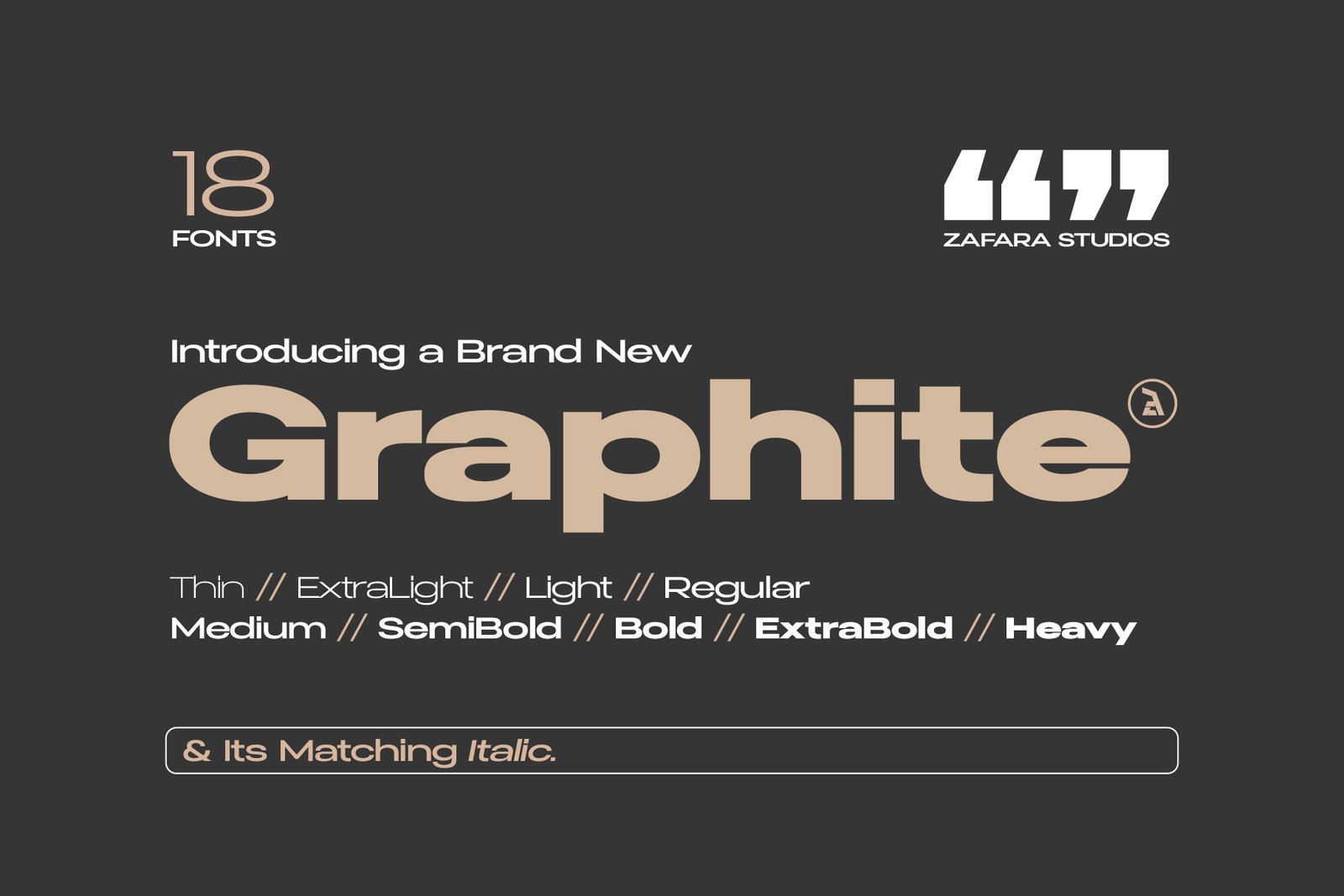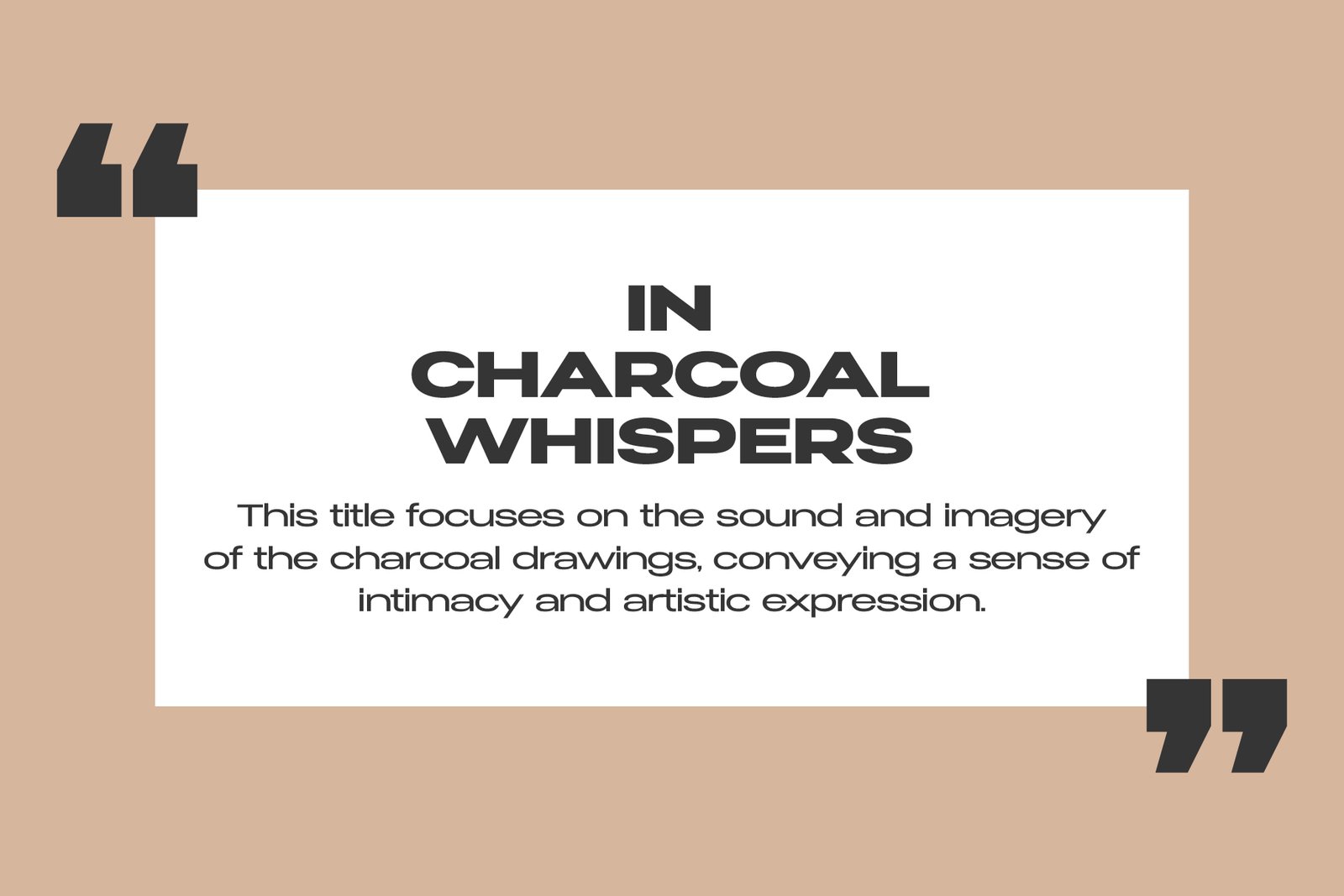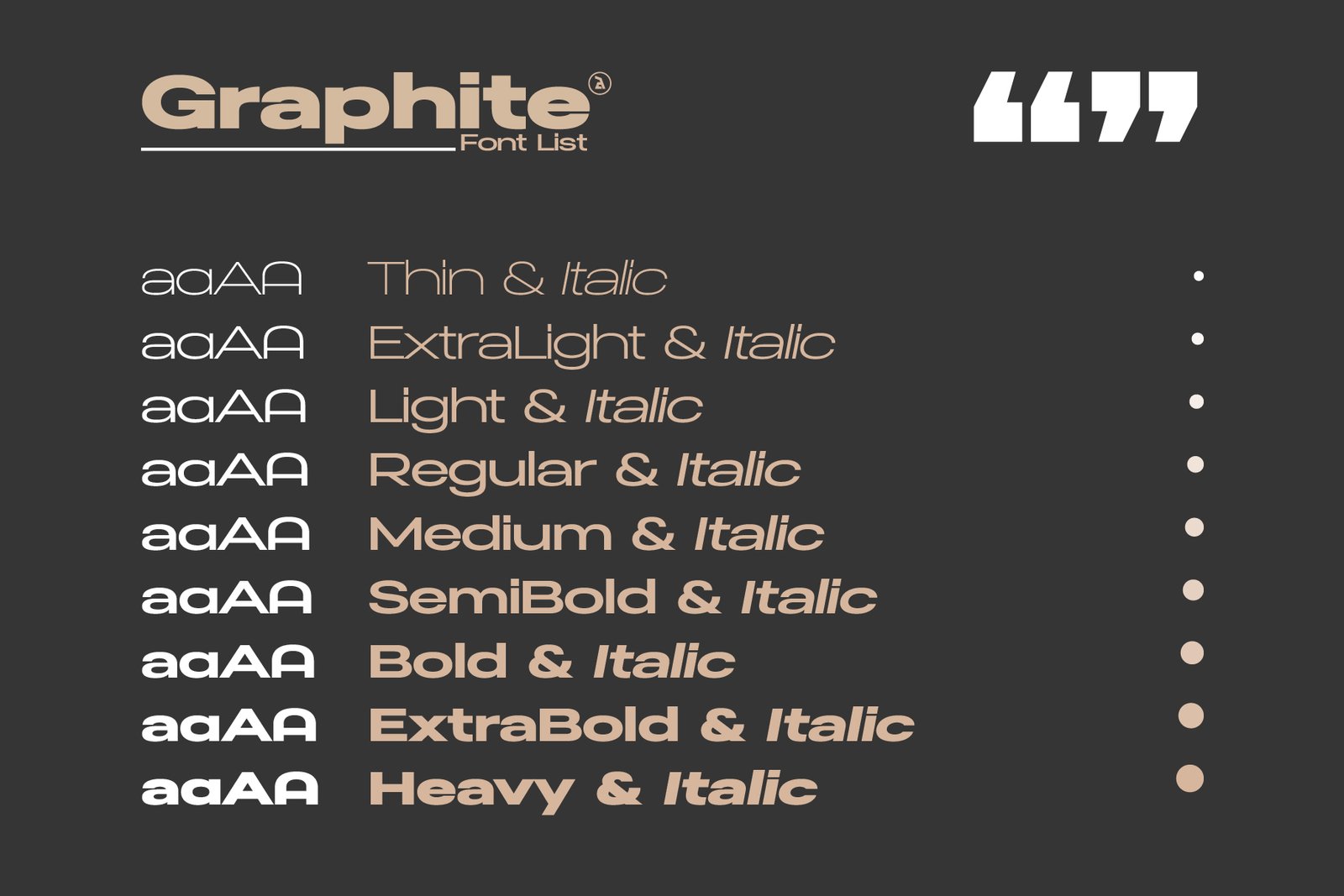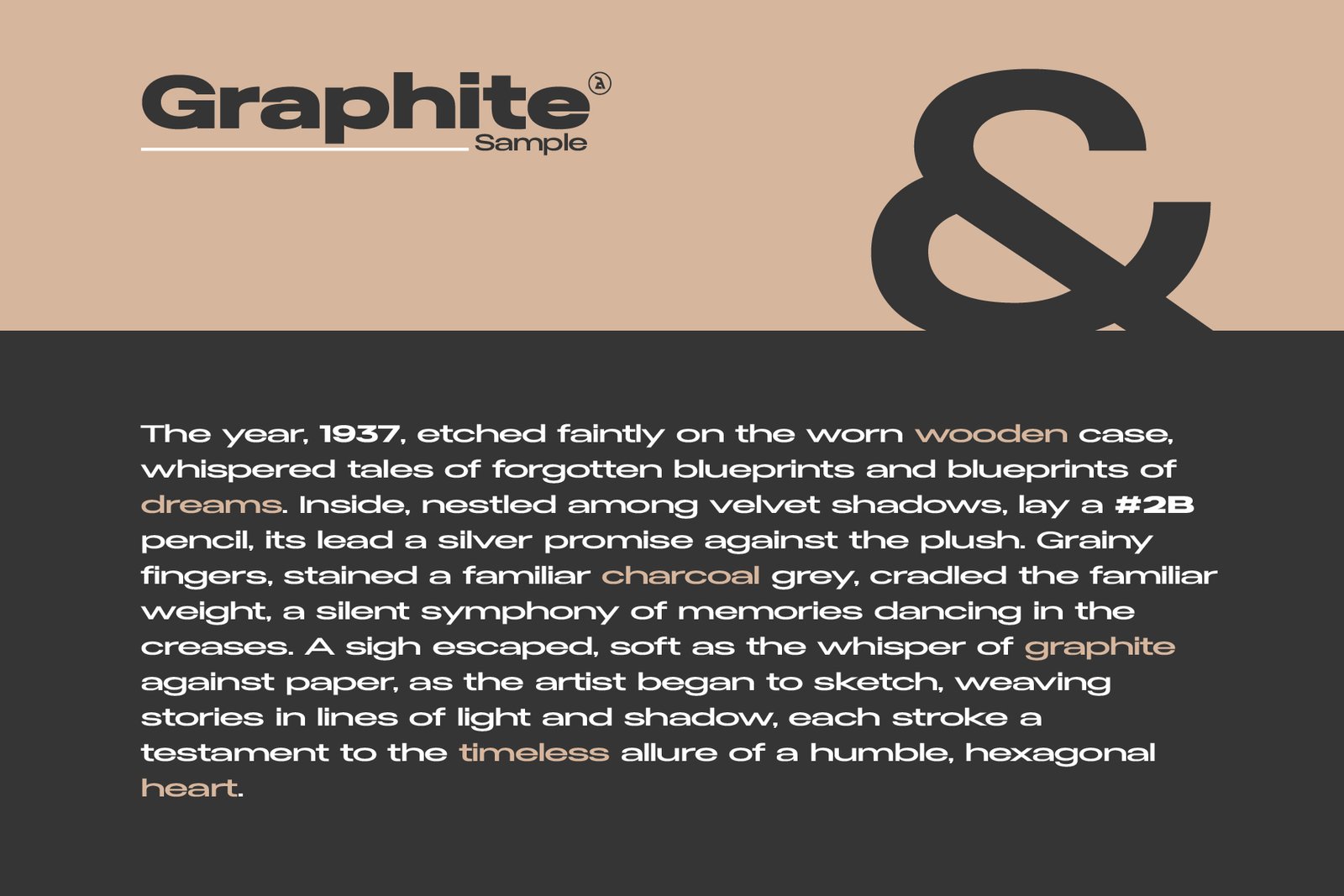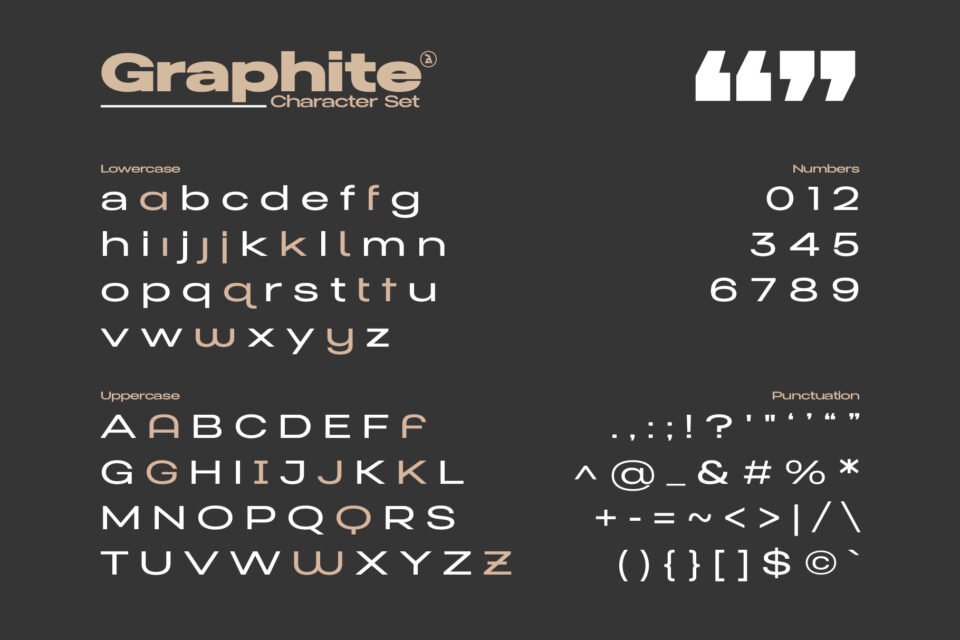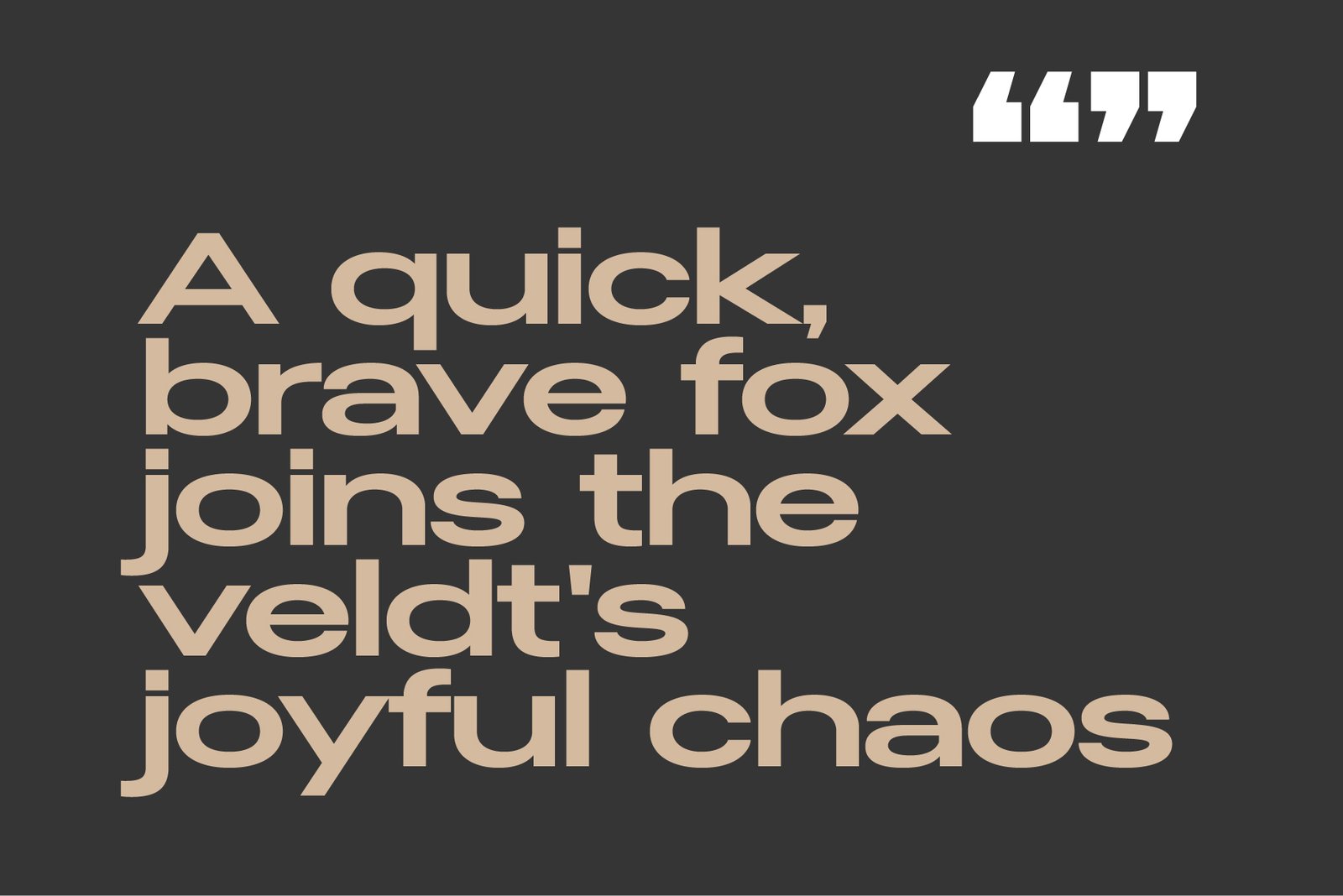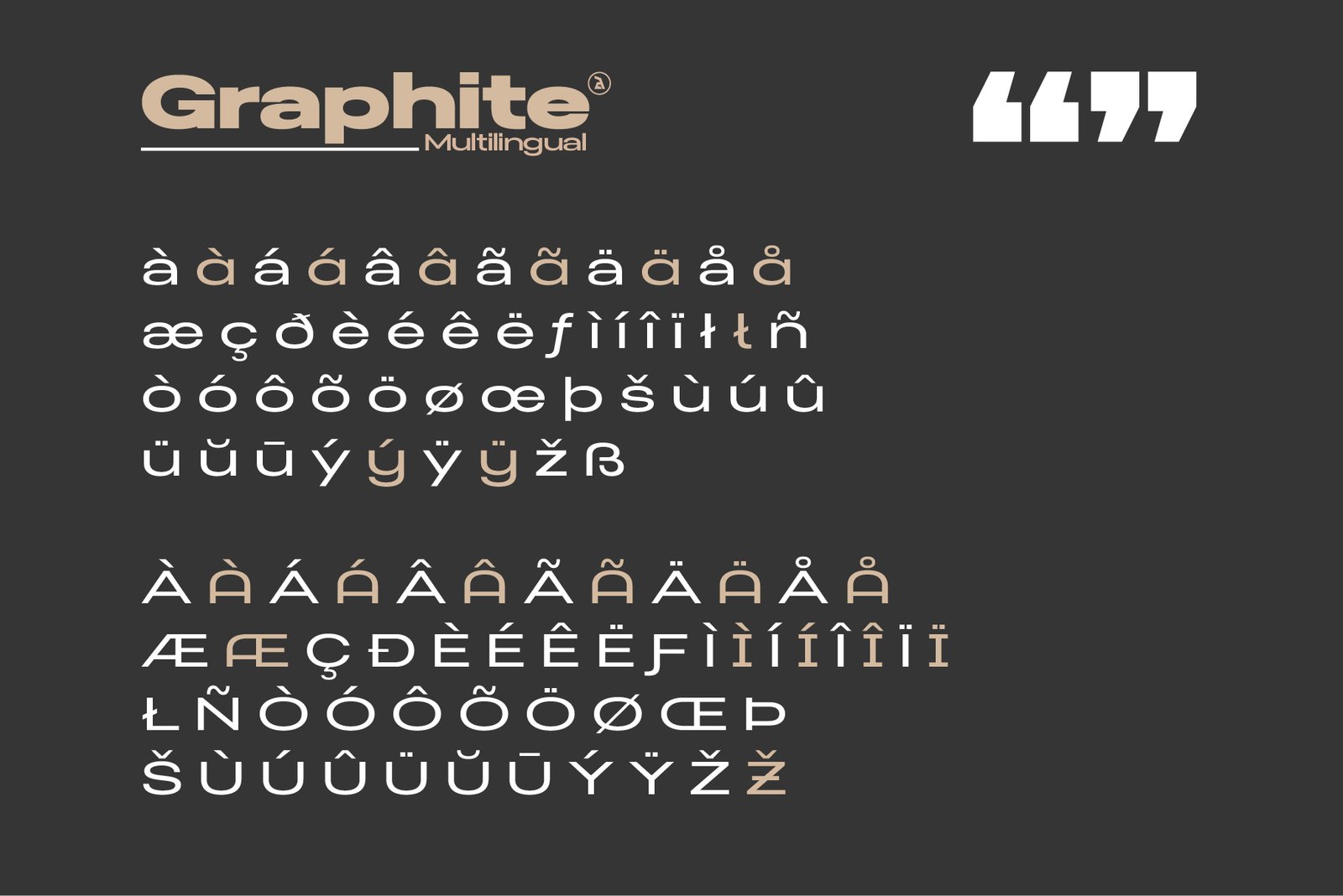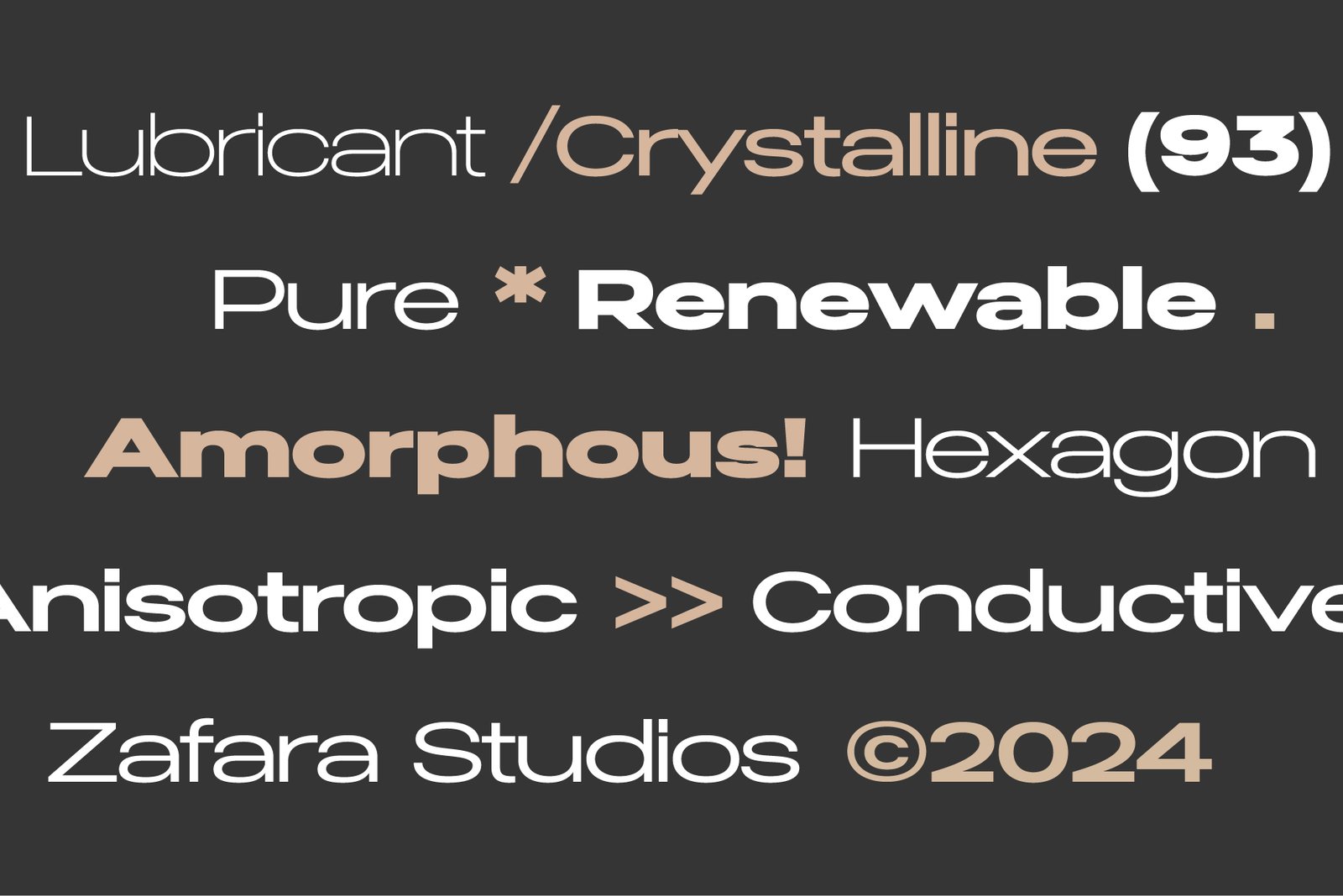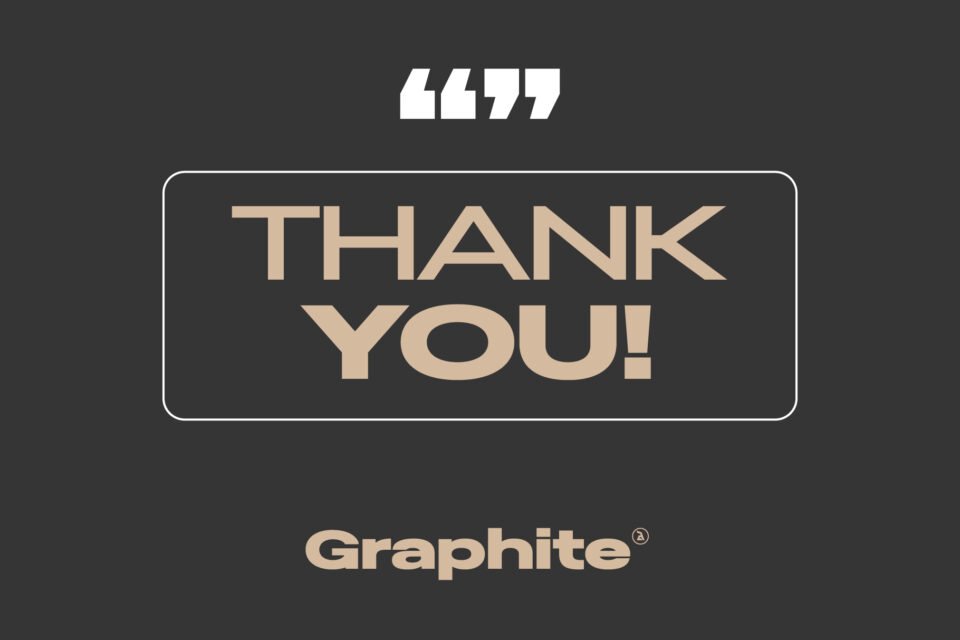
A full view of the Graphite font family, showing its 18 available fonts, including Thin, Light, Regular, and Heavy weights with matching italics.
The phrase "IN CHARCOAL WHISPERS" set in the bold Graphite font, with a description below explaining its imagery and artistic expression.
A list of all nine Graphite font weights and their matching italics, from Thin to Heavy.
A paragraph of text set in the Graphite font, demonstrating its readability and elegance in a long-form format.
A complete character set of the Graphite font, including lowercase, uppercase letters, numbers, and various punctuation marks.
The pangram "A quick, brave fox joins the veldt's joyful chaos" displayed in the Graphite font.
A display of multilingual characters and diacritics supported by the Graphite font.
A typographic showcase of the Graphite font using various keywords and symbols like "Crystalline," "Renewable," and "Anisotropic."
A full view of the Graphite font family, showing its 18 available fonts, including Thin, Light, Regular, and Heavy weights with matching italics.
The phrase "IN CHARCOAL WHISPERS" set in the bold Graphite font, with a description below explaining its imagery and artistic expression.
A list of all nine Graphite font weights and their matching italics, from Thin to Heavy.
A paragraph of text set in the Graphite font, demonstrating its readability and elegance in a long-form format.
A complete character set of the Graphite font, including lowercase, uppercase letters, numbers, and various punctuation marks.
The pangram "A quick, brave fox joins the veldt's joyful chaos" displayed in the Graphite font.
A display of multilingual characters and diacritics supported by the Graphite font.
A typographic showcase of the Graphite font using various keywords and symbols like "Crystalline," "Renewable," and "Anisotropic."
Graphite is a versatile wide sans serif font family designed with high contrast and visual clarity in mind. Arranged in a tight but balanced composition, this elegant typeface conveys a sense of intimacy and artistic expression. As a robust display font family, Graphite is perfectly suited for headlines, titles, logotypes, magazines, and any type of text that needs to be visible and exceptionally easy to read.
The details of this comprehensive wide sans serif font are:
• 225 glyphs: uppercase, lowercase, stylistic, multilingual, numbers, punctuation
• 9 weights: thin, extralight, light, regular, medium, semibold, bold, extrabold, heavy
• 9 italics